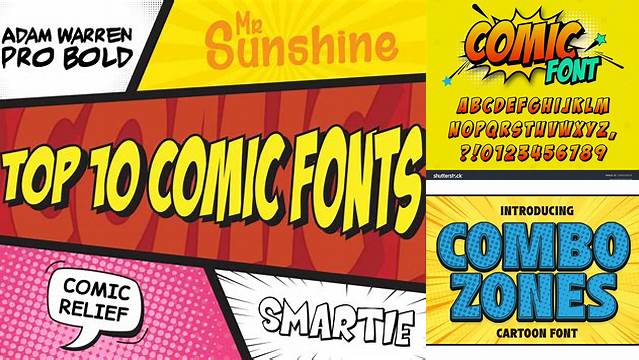
Free Comic Book Fonts For Commercial Use
Hey comic creators and designers! Finding the perfect font that screams action, adventure, and pow-wow without breaking the bank can be tough. But don't worry, we've got you covered! This article dives into the world of comic book fonts free for commercial use, exploring various options to make your projects pop. From bold and dynamic typefaces to quirky and playful styles, get ready to discover fonts that will bring your stories to life. Let's jump in and find the ideal lettering for your next comic masterpiece!
Comic Fonts 101: What Makes a Font "Comic Booky?"
So, what exactly makes a font feel like it belongs in a comic book? It's more than just a fun, whimsical style, guys. Comic book fonts often have a hand-drawn feel, with varying line weights and slightly imperfect edges that give them character. They tend to be bold and legible, even in small sizes, ensuring readers can easily follow the action. Many also incorporate elements of sound effects, like stylized exclamation points and dynamic letterforms that convey movement and energy. When choosing a comic book font, think about the overall tone and style of your project. Is it a superhero adventure, a lighthearted comedy, or a gritty crime story? The font should complement and enhance the narrative, not distract from it. Consider also the font's readability; even the coolest font is useless if it's hard to decipher in a speech bubble. Finally, think about the overall aesthetic you're aiming for. Do you want a classic, vintage look, or something more modern and edgy? There are tons of options out there, so take your time and explore different styles until you find the perfect fit.
Best Practices for Using Comic Book Fonts in Your Work
Okay, so you've found the perfect comic book font – awesome! But how do you use it effectively? First, consider the overall design and layout of your comic. The font should complement the artwork and enhance the reading experience. Use a font size that's easy to read, even in small speech bubbles. Pay attention to kerning and leading to ensure the text is well-spaced and visually appealing. Don't be afraid to experiment with different font weights and styles to create emphasis and visual interest. For example, use a bold font for sound effects or important dialogue. Limit the number of fonts you use to avoid a cluttered and distracting look. Stick to two or three fonts at most, and use them consistently throughout your comic. Finally, always test your font choices on different devices and screen sizes to ensure they look good across all platforms. By following these best practices, you can create a visually stunning and engaging comic that readers will love.
Comic Sans: The Font Everyone Loves to Hate (and Alternatives)
Let's address the elephant in the room: Comic Sans. It's the font that everyone loves to hate, often criticized for being overused and unprofessional. While it might be tempting to use Comic Sans for your comic book project, there are many better alternatives that offer a similar playful feel without the negative baggage. Fonts like Cheveux d'ange and Bubblegum Sans provide a more modern and polished take on the comic book style. If you're looking for something more unique, try CC Meanwhile or Badaboom BB. These fonts offer a distinct personality and can help your comic stand out from the crowd. Remember, the goal is to choose a font that complements your artwork and enhances the reading experience, not to rely on a tired and clichéd option. So, ditch the Comic Sans and explore the many other fantastic comic book fonts available!
Creating Your Own Comic Book Font
Feeling adventurous? Why not create your own comic book font? This can be a fun and rewarding way to add a unique touch to your projects. Several software programs can help you design your own fonts, such as FontForge (free and open-source), Glyphs, and FontLab Studio. Start by sketching out the basic letterforms on paper, then scan them into your computer. Use the font design software to refine the shapes, adjust the spacing, and add any special characters you need. Consider the overall style and tone you're aiming for, and experiment with different line weights and details. Once you're happy with your font, you can export it in a format that can be used in your design software. Creating your own font takes time and effort, but it can be a great way to express your creativity and create a truly unique look for your comic book projects.
Pairing Fonts for Maximum Impact
Choosing the right comic book font is crucial, but don't forget about pairing it with other fonts to create a cohesive and visually appealing design. A good rule of thumb is to pair a bold, display font for headlines and titles with a more legible sans-serif font for body text. For example, you could pair a font like Komika Axis with Open Sans for a clean and modern look. Alternatively, you could pair a hand-drawn font like Anime Ace with Roboto for a more playful and informal feel. When pairing fonts, consider the overall contrast and balance. Make sure the fonts complement each other without clashing or competing for attention. Use different font weights and sizes to create visual hierarchy and guide the reader's eye. Experiment with different combinations until you find a pairing that works well for your project. Remember, the goal is to create a visually appealing and easy-to-read design that enhances the overall reading experience.
Font Alternatives to Popular Comic Book Lettering Styles
Comic Book Font Trends in 2024
Stay ahead of the curve by knowing the comic book font trends in 2024. Look out for fonts that mix modern and retro styles, offering a fresh take on classic comic aesthetics. Bold, sans-serif fonts continue to be popular for their readability and impact. Variable fonts, which allow for customizable weights and styles, are also gaining traction. Hand-drawn fonts that mimic the look of traditional lettering remain a favorite for their authenticity and charm. Experiment with fonts that incorporate unique design elements, such as geometric shapes or textured effects. Pay attention to fonts that are optimized for digital platforms, ensuring they look great on screens of all sizes. By embracing these trends, you can keep your comic books looking fresh and modern.